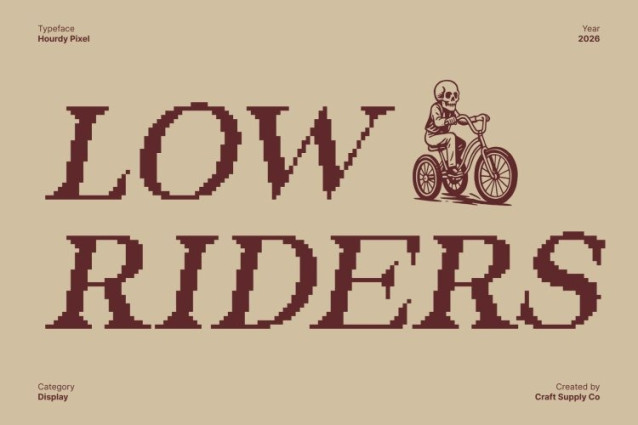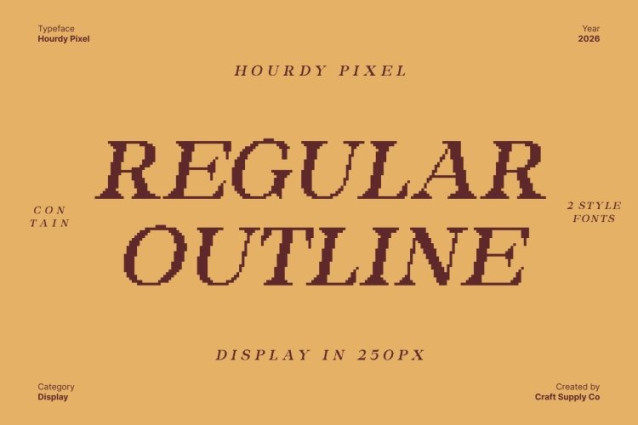
Hourdy Pixel Font
Hourdy Pixel Font This is a sleek and modern serif typeface designed for professional use, reinterpreted through a clean pixel-based structure. Its refined serif forms bring sophistication and authority, while the bitmap construction introduces a subtle digital character that feels contemporary and precise perfect for modern business and technology-driven applications.
Versatile and Elegant with Digital Precision
Thanks to its balanced proportions and structured pixel grid, adapts seamlessly to a wide range of uses, including headlines, body text, branding, and user interfaces. The modern serif style adds a polished, contemporary flair, while its classic foundations ensure a timeless and trustworthy appearance.
Enhanced Readability Across Media
This font prioritizes clarity and legibility, even within its pixel construction. Carefully spaced letterforms and controlled contrast ensure that text remains easy to read at various sizes, whether used in print or digital environments. This makes it a reliable choice for professional communication that demands both style and function.
Perfect for Professional and Corporate Use
From business cards and presentations to websites, reports, and corporate branding, delivers a professional and modern aesthetic with a distinctive digital edge. Its timeless serif design, combined with pixel precision, ensures your work looks confident, current, and consistently polished.